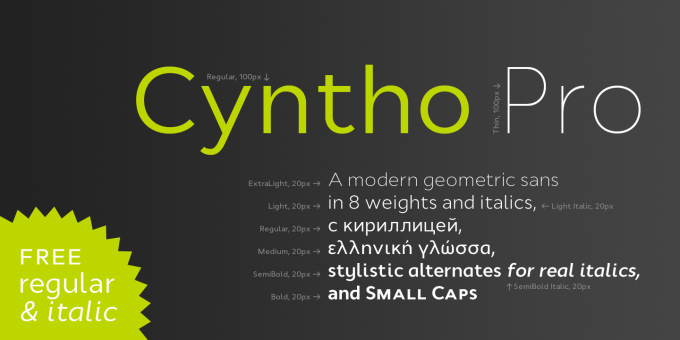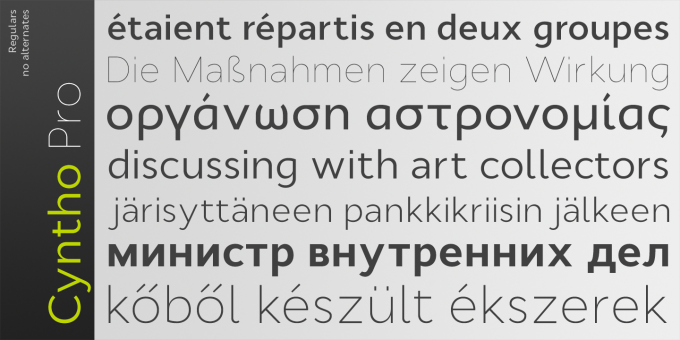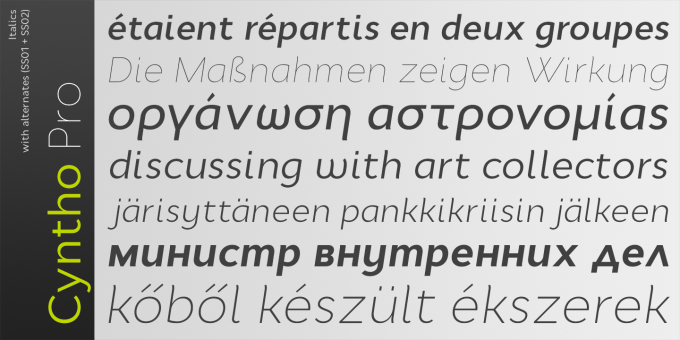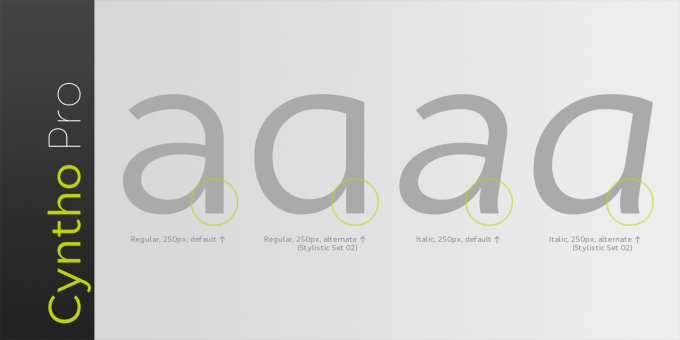
Cyntho Pro
Cyntho Pro is a modern geometric sans with eight weights varying from Thin to Black and featuring Cyrillic and Greek scripts.
Unlike most geometric sans faces, it offers optional upright and real italics, wrapped in OpenType ‘stylistic alternates’ features, or stylistic set #02, where sets can be applied separately. Small caps are included as well. This typeface can be used in magazines, posters, advertising, corporate identity, and more.